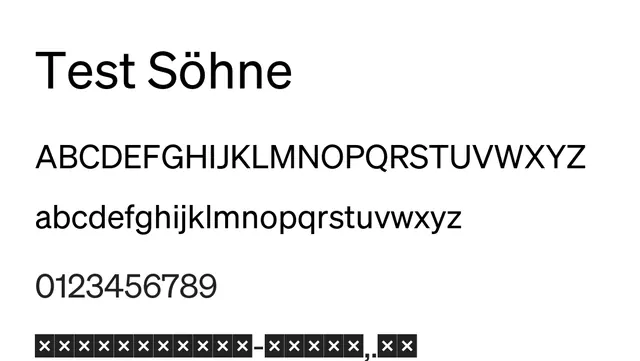
Test Söhne
Test Söhne, modern, clean
A clean, geometric sans-serif with humanist touches and excellent text readability designed for interfaces and editorial use.
Ideal for UI design, web interfaces, and editorial body copy. The geometric construction combined with humanist warmth makes it equally effective at display and paragraph sizes.
Pair with Signifier serif for editorial layouts or The Future for technical documents.